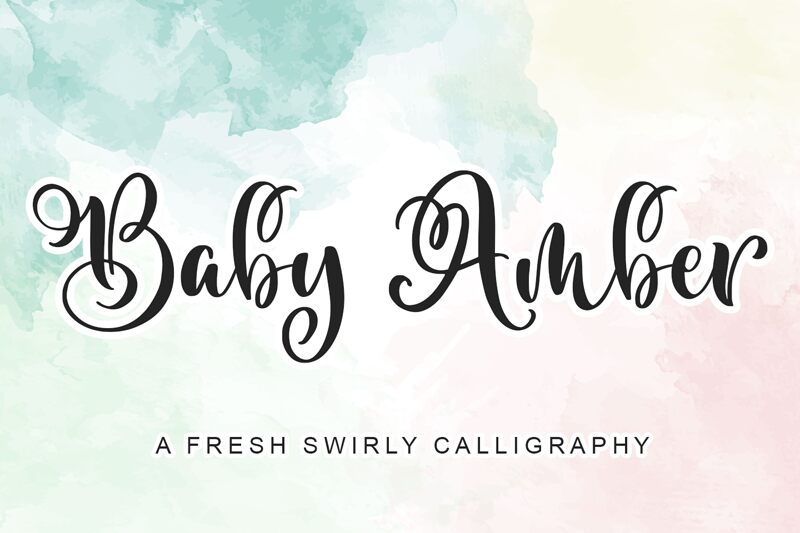
Baby Amber is a beautiful light calligraphy font designed by Panggah Laksono from Abo Daniel Studio. Its unique curly style makes it perfect for adding a touch of elegance to any project, from wedding invitations and announcements to logos, posters and social media posts. It's also great for creating personalised prints that will stand out from the crowd. Baby Amber is the ideal choice for creating unique, eye-catching designs with an artistic flair.
Baby Amber